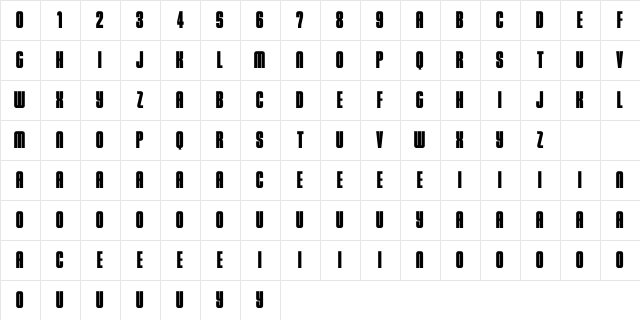
Complete Bayside Demo Regular glyph index. Displaying only characters natively supported by Bayside Demo Regular font.
Bayside Demo is a composed and adaptable typeface that performs quietly and consistently across a wide range of design contexts.
Who designed the Bayside Demo Regular font?
This font was published by Indieground Design. Check the technical specs section for copyright and designer details.